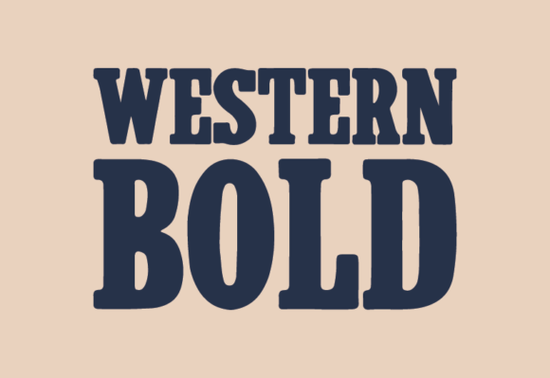
Western Bold Font is a versatile typeface that brings a retro vibe to modern design projects. Its clean, bold structure makes it ideal for creating a minimalist aesthetic without sacrificing character. Whether you're working on a logo, website, or branding material, this font offers a timeless look that feels both familiar and fresh. The balanced proportions and vintage-inspired details make it a great choice for those looking to add a touch of classic style to their work.
If you're exploring fonts for a Western theme, you might find that Western Bold fits well alongside other similar styles. For example, Vonca Font provides a more casual, hand-drawn feel that can complement the structured look of Western Bold. Both fonts are part of the broader category of serif fonts, which are known for their readability and visual appeal in both digital and print formats.
What Makes Western Bold Unique?
Western Bold stands out due to its combination of simplicity and character. Unlike some fonts that try to be overly ornate, this one keeps things straightforward while still offering enough detail to make an impact. The bold strokes give it a strong presence, making it perfect for headlines or display text. At the same time, its clean lines ensure it remains readable even at smaller sizes.
This font works especially well in designs that aim for a retro or rustic feel. It’s often used in branding for businesses that want to evoke a sense of nostalgia or authenticity. Its versatility means it can be used in a variety of contexts, from packaging to social media graphics.
Best Uses for Western Bold
- Logos: The bold and structured design makes it a strong candidate for business or brand logos.
- Web Design: Use it for headings or buttons to create a visually appealing layout.
- Branding: Ideal for creating a cohesive look across different marketing materials.
- Print Projects: Great for posters, flyers, or any printed content that needs a classic touch.
Designers who appreciate a clean yet distinctive style will find Western Bold to be a valuable addition to their toolkit. Its simplicity doesn’t mean it lacks personality it simply offers a more refined approach to the Western font genre.
How to Choose the Right Font for Your Project
When selecting a font like Western Bold, it’s important to consider the overall tone and purpose of your design. If you’re going for a more traditional or rugged look, this font could be a good fit. However, if you need something more modern or minimal, you might want to explore other options.
It’s also helpful to test the font in different sizes and contexts. What looks great in a headline may not work as well in body text. Experimenting with spacing, color, and background can help you get the best results.
For those interested in exploring more fonts in the same category, Western Bold Font is a great starting point. You can also look into other serif fonts to see how they compare in terms of style and usability.
Tips for Using Western Bold Effectively
- Use it for emphasis: Pair it with a simpler font for body text to create contrast and visual interest.
- Limit the number of fonts: Stick to one or two complementary fonts to keep your design from looking cluttered.
- Test in different formats: Make sure it looks good both on screen and in print.
- Consider the audience: A Western-style font may resonate more with certain demographics or industries.
By understanding how to use Western Bold effectively, you can enhance your designs while maintaining a professional and cohesive look. Whether you're a designer, a small business owner, or a creative hobbyist, this font offers a range of possibilities for your next project.
If you're looking for a reliable and stylish font that adds character without overwhelming your design, Western Bold is worth trying. Its balance of simplicity and personality makes it a go-to choice for many creative professionals.